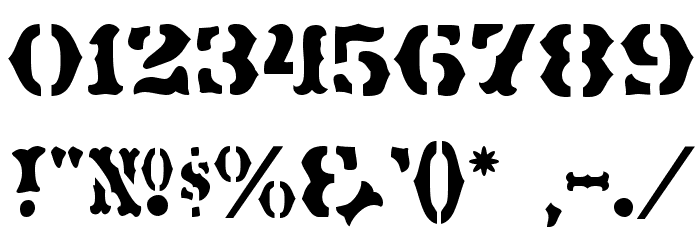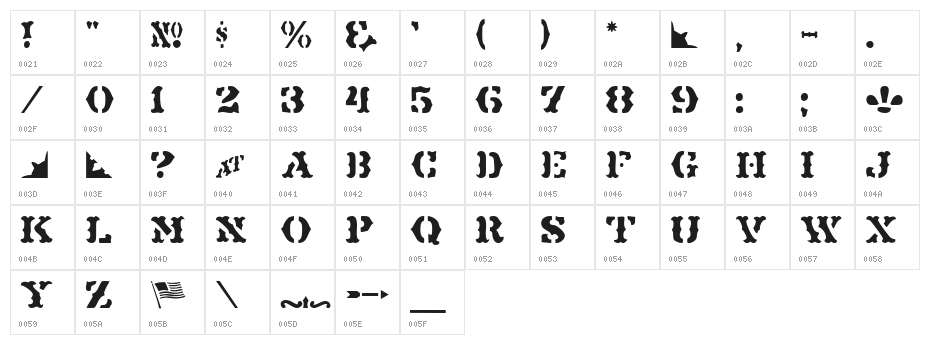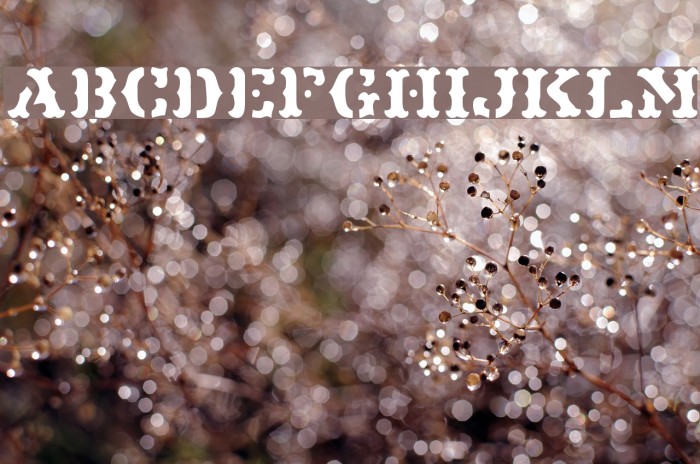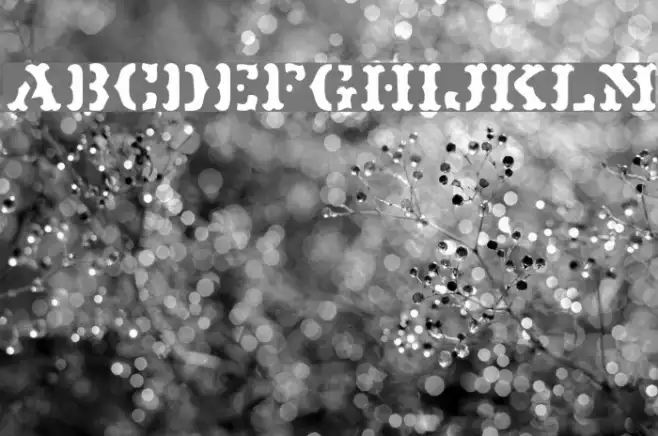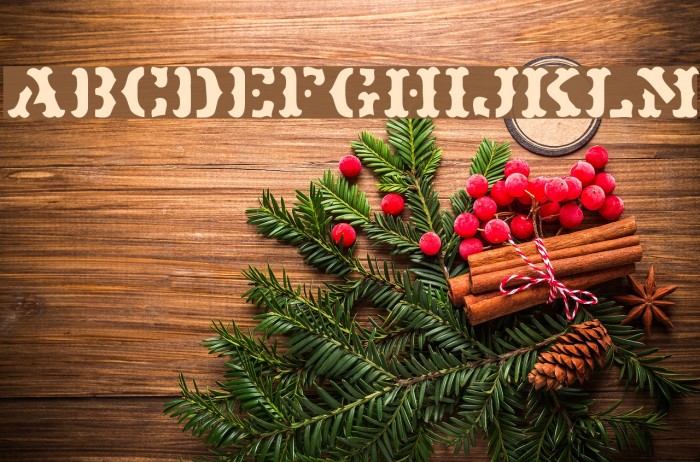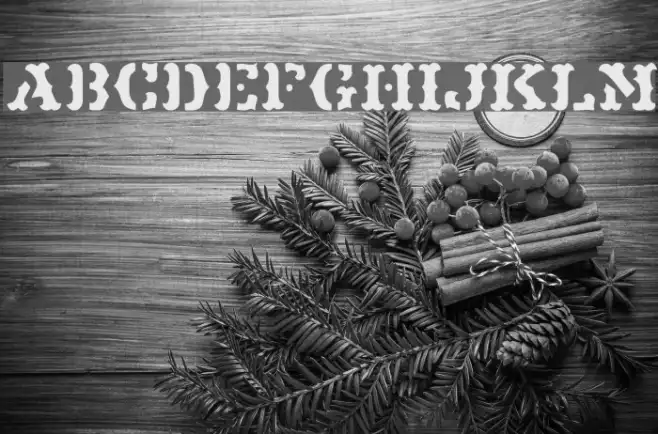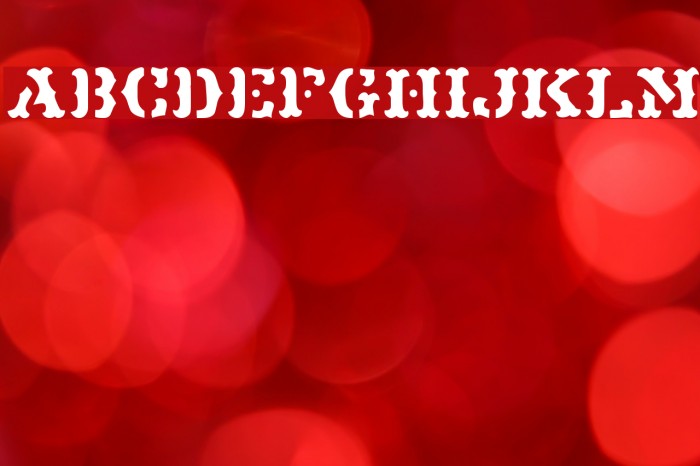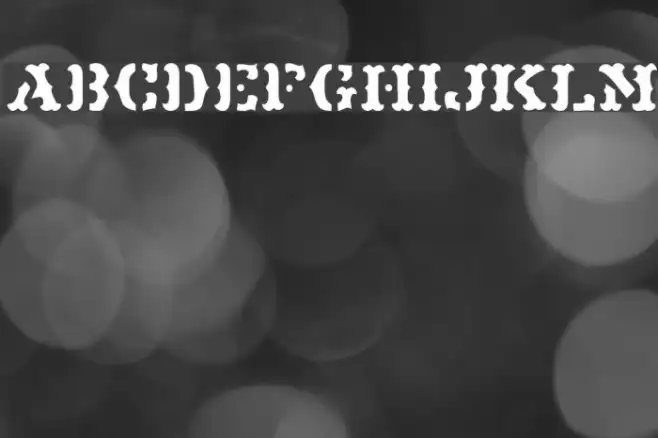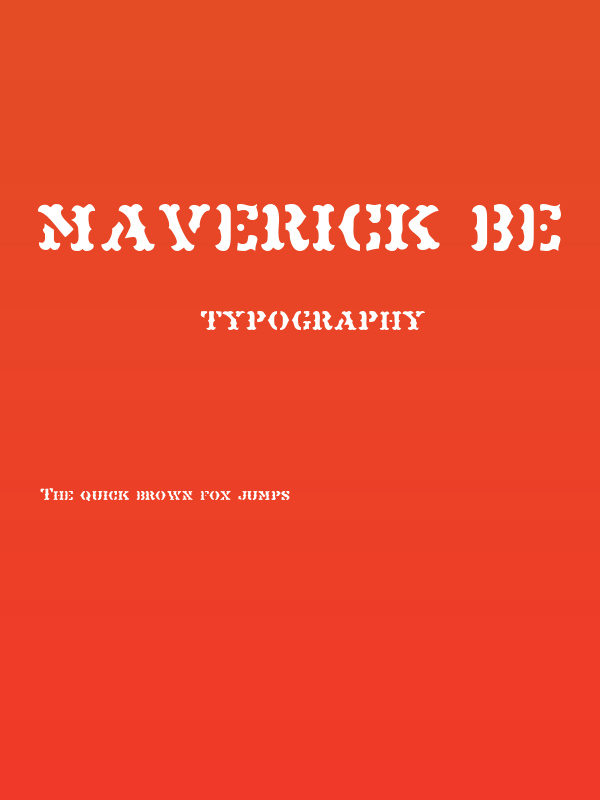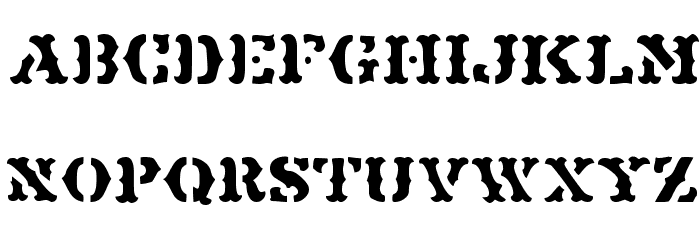
Maverick BE Font
Maverick BE Description
This font features a bold, stencil-like design with strong geometric shapes and cut-out sections that create a rugged, industrial feel. The uppercase and lowercase letters maintain a consistent style, with thick strokes and sharp angles that give the font a distinctive, eye-catching appearance. The numbers and special characters follow the same design principles, ensuring uniformity across all glyphs. The font's unique style makes it suitable for projects that require a bold, impactful look, such as posters, signage, and branding materials. Its high contrast and decorative elements make it stand out, while the stencil design adds a touch of modernity and edginess.
| Proposed Projects | Ideal for posters, signage, branding materials, and any project needing a bold, impactful design. |